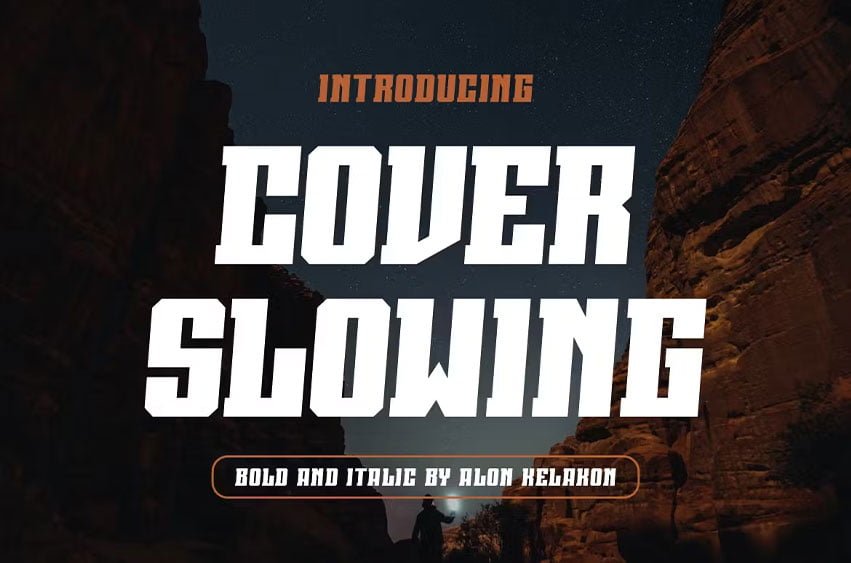
Cover Slowing Font is unique . Ready to use for your design like labeling, movie sceen, poster, movie title, gigs, album covers, logos, and much more.